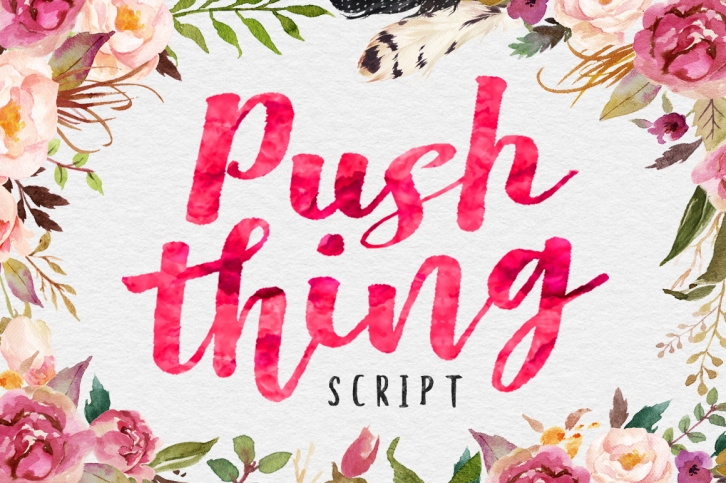
Pust Thing Script is a trendy and unique font with an authentic style. It was designed by Stripes Studio and it's a great choice for creative people who need such a font. It was released on September 16, 2019 and the file size is 11.1 MB. Pust Thing Script will add an organic vibe to any design idea!